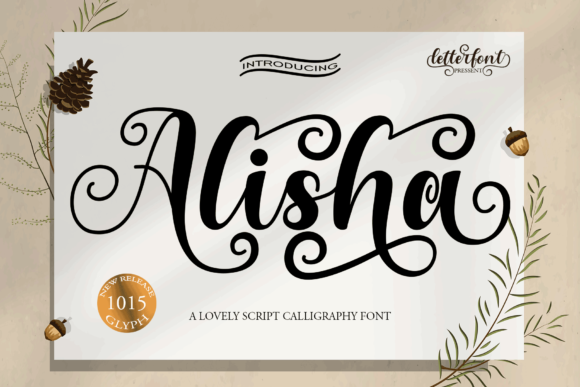
Step into the enchanting world of Alisha Font, where every letter dances with grace and whispers a tale of timeless beauty. Crafted with meticulous care by the renowned MYdesign, Alisha is a captivating script font that will gracefully adorn your designs with an ethereal touch.
Indulge in the subtle elegance of Alisha, a symphony of curves and flourishes that evoke a sense of timeless sophistication. Each letter seems to have been meticulously penned with a delicate hand, imbuing your creations with a touch of artistry and charm.
Unleash your creativity with Alisha's versatility, a font designed to complement a myriad of projects. Whether you seek to add a touch of enchantment to your branding, craft heartfelt invitations, or create captivating social media posts, Alisha will effortlessly elevate your designs to new heights.
Dive into the depths of Alisha's character set, a treasure trove of glyphs and swashes, easily accessible thanks to its PUA encoding. Let your imagination soar as you explore the endless possibilities, weaving intricate monograms, adding whimsical flourishes to your headlines, or crafting captivating logos that leave a lasting impression.